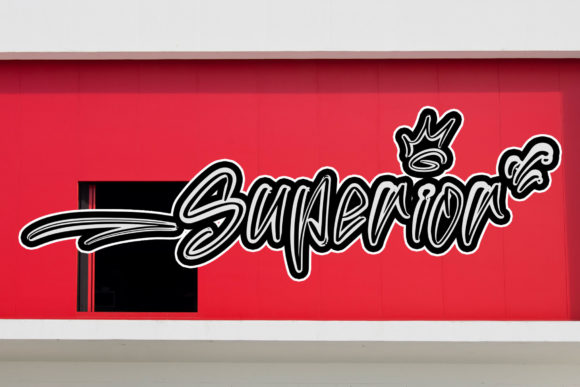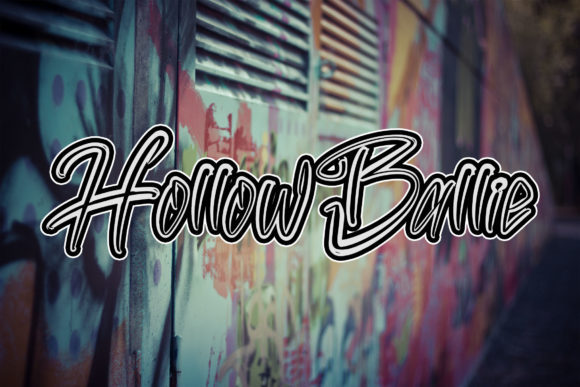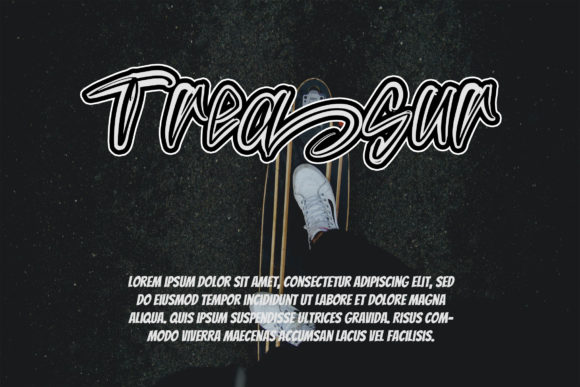
Introduction to Hollow Ballie Font
Hollow Ballie is an awesome, graffiti-styled display font that has a street art vibe.
This font is suitable for designs such as t-shirts, sportswear, logos, advertisements, clothing, and more .
Key Features of Hollow Ballie Font